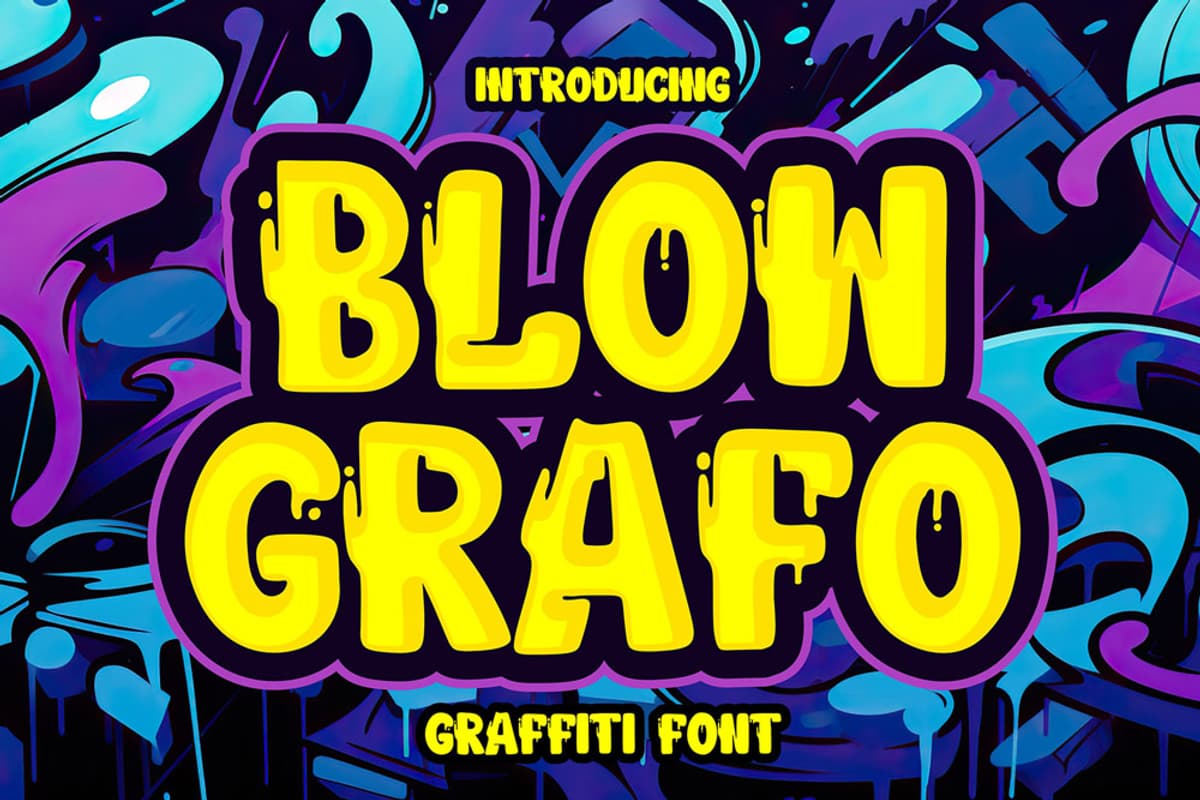
Blow Grafo
Introducing Blow Grafo – the Urban Graffiti Font that embodies the raw, expressive energy of street art. Perfect for projects that need a bold and edgy touch, Blow Grafo brings an urban vibe that commands attention and makes a powerful statement. ✨ Bold and Edgy: Blow Grafo captures the essence of graffiti with its striking and dynamic letterforms. Each character is designed to convey strength and attitude, making it ideal for designs that need a bold and fearless appeal.